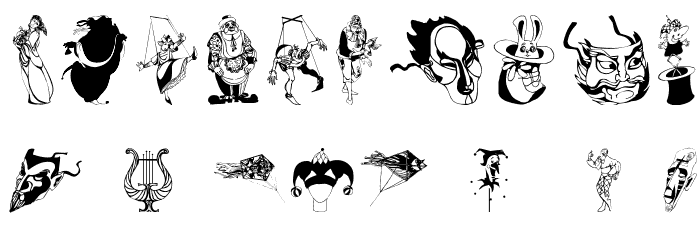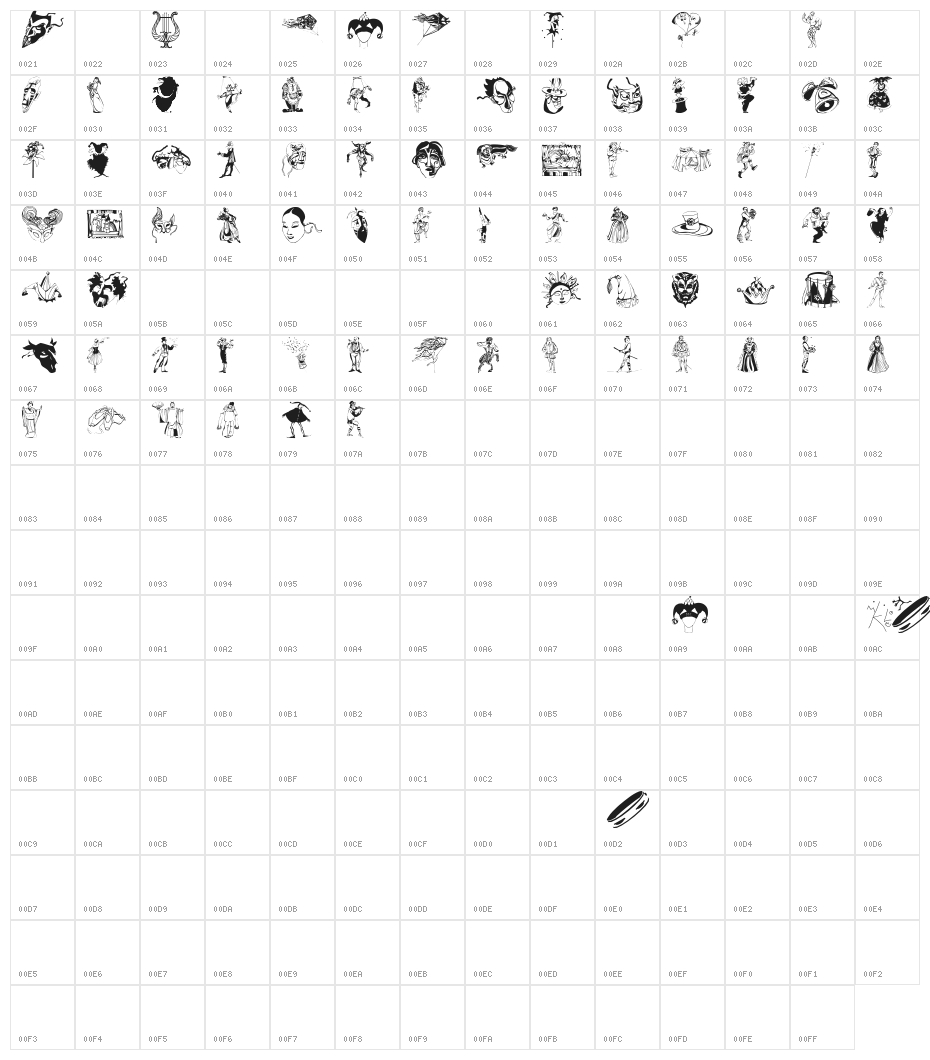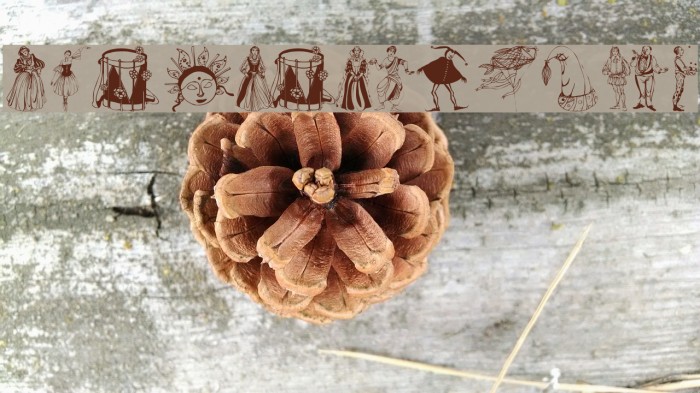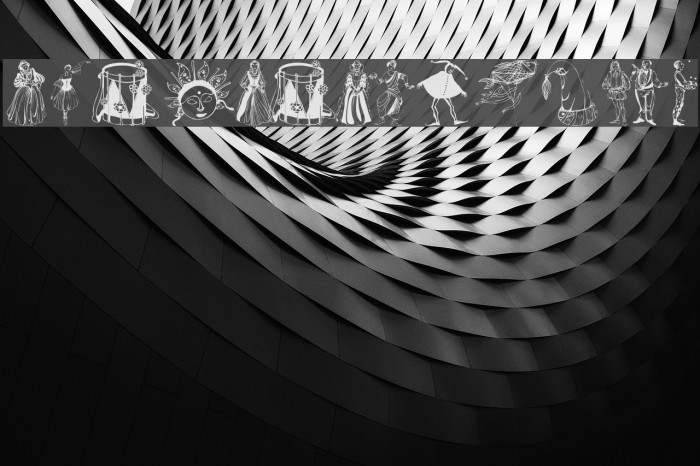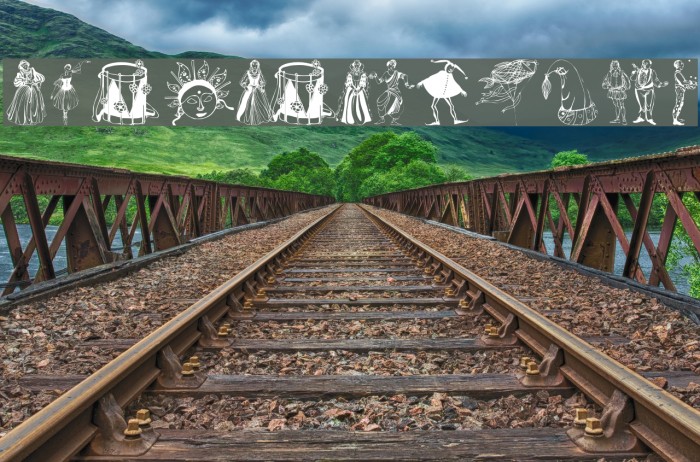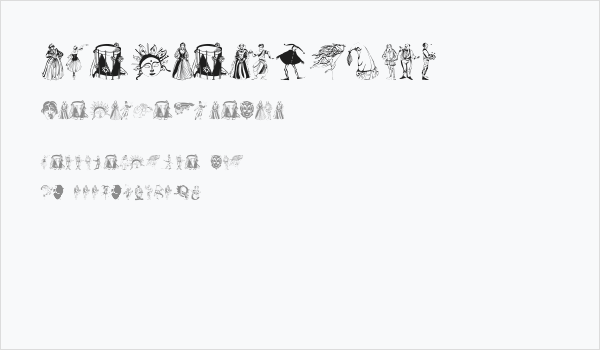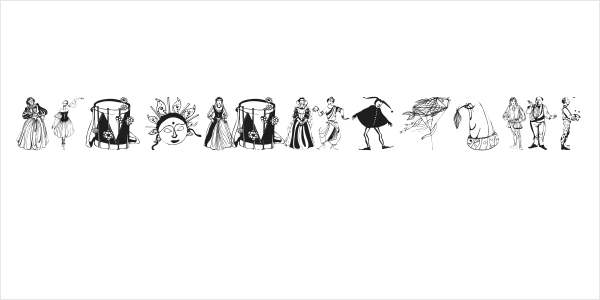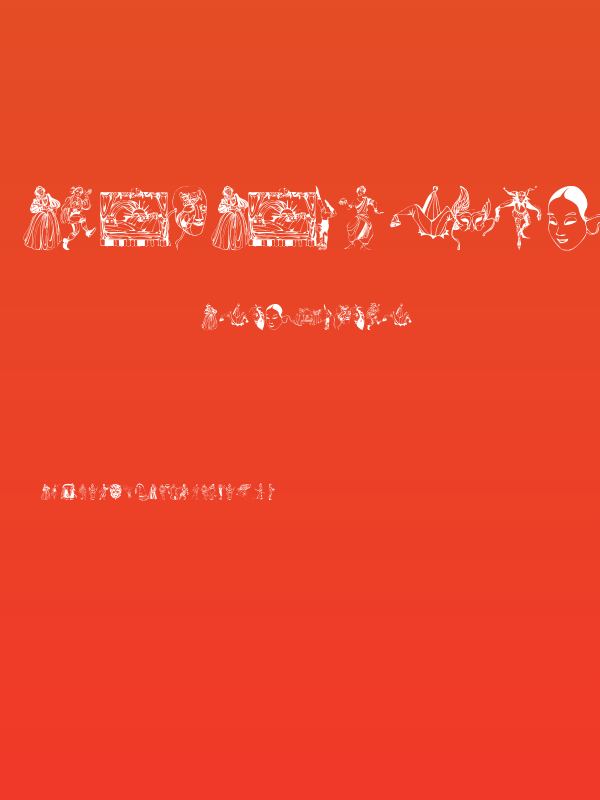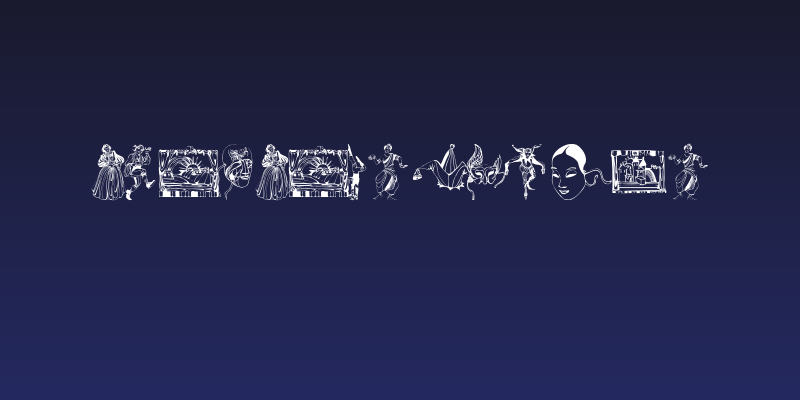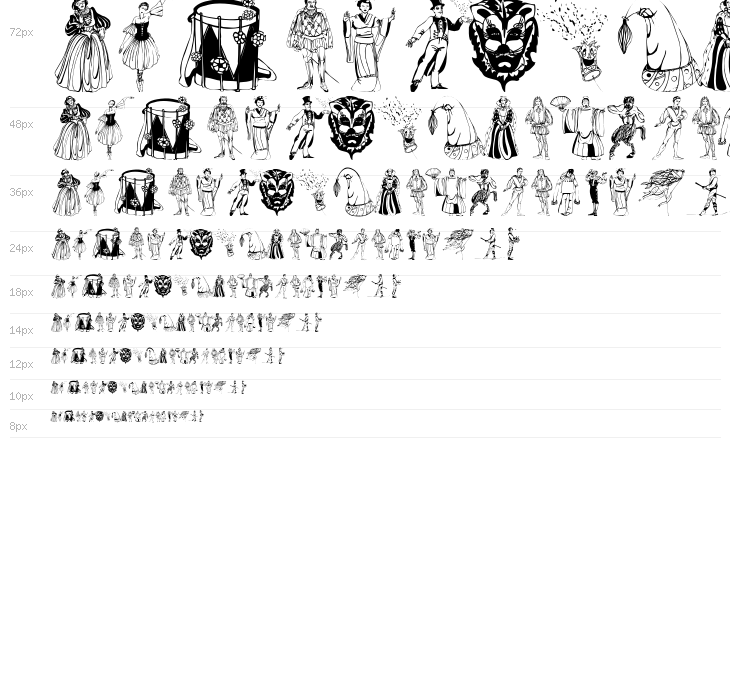
TheaterSymbols Font
TheaterSymbols Description
A decorative symbol set featuring detailed, theatrical illustrations such as masks, performers, costumes, and props, rendered in a hand-drawn, high-contrast black and white style. Each character is represented by a unique, expressive image related to theater arts, rather than traditional alphanumeric glyphs.
| Overall Style | Decorative, Artistic, Theatrical |
| Use Case | Logos, Headlines, Themed graphics, Illustrative purposes |
| Proposed Projects | Posters, event flyers, theater programs, invitations, themed branding, educational materials. |